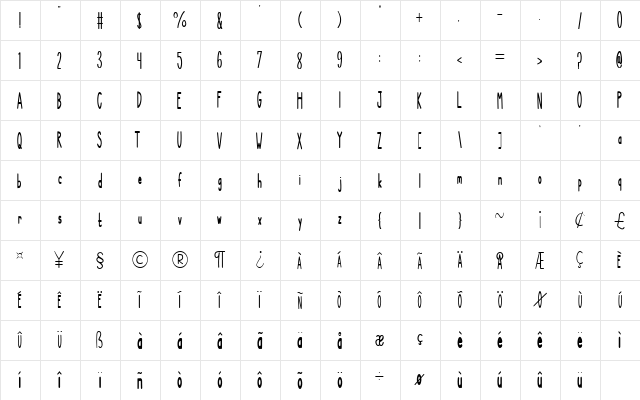
NEW DIVIDE Regular Font Preview
NEW DIVIDE Regular
Design Context for NEW DIVIDE Typeface
NEW DIVIDE takes a measured approach to typography — its balanced proportions and neutral character make it a reliable workhorse for both digital and print work.